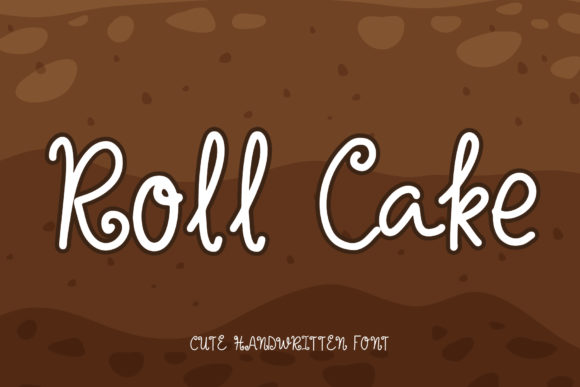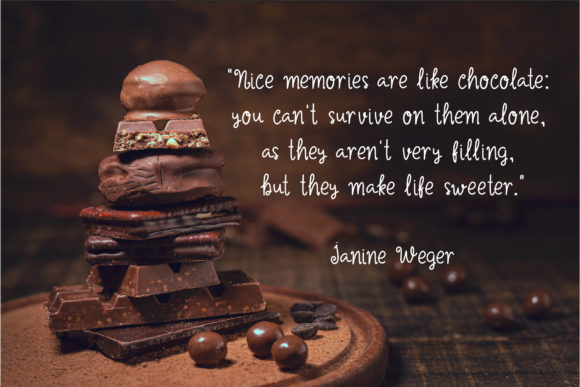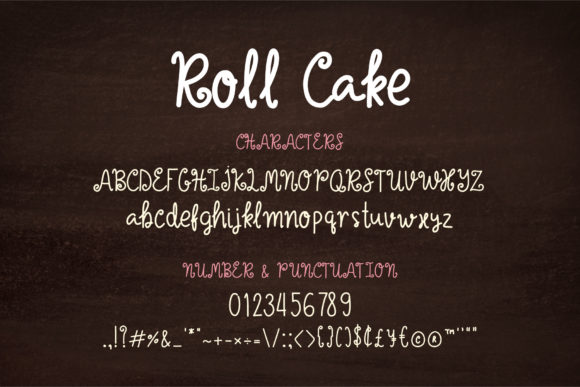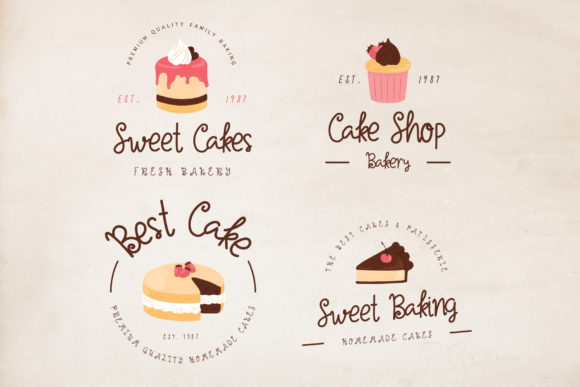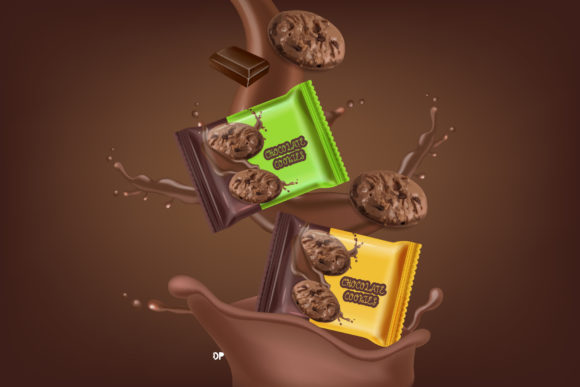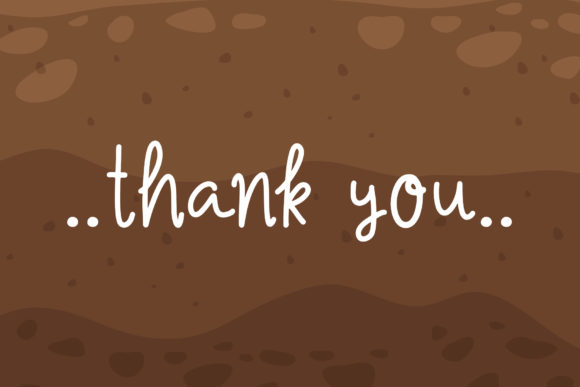
Roll Cake Font
About Roll Cake Font
Roll Cake is a cute handwritten font with an incredible friendly feel. Playful and a little bit quirky, this font is the perfect fit for all of your logos, branding, posters, and crafty DIY projects.